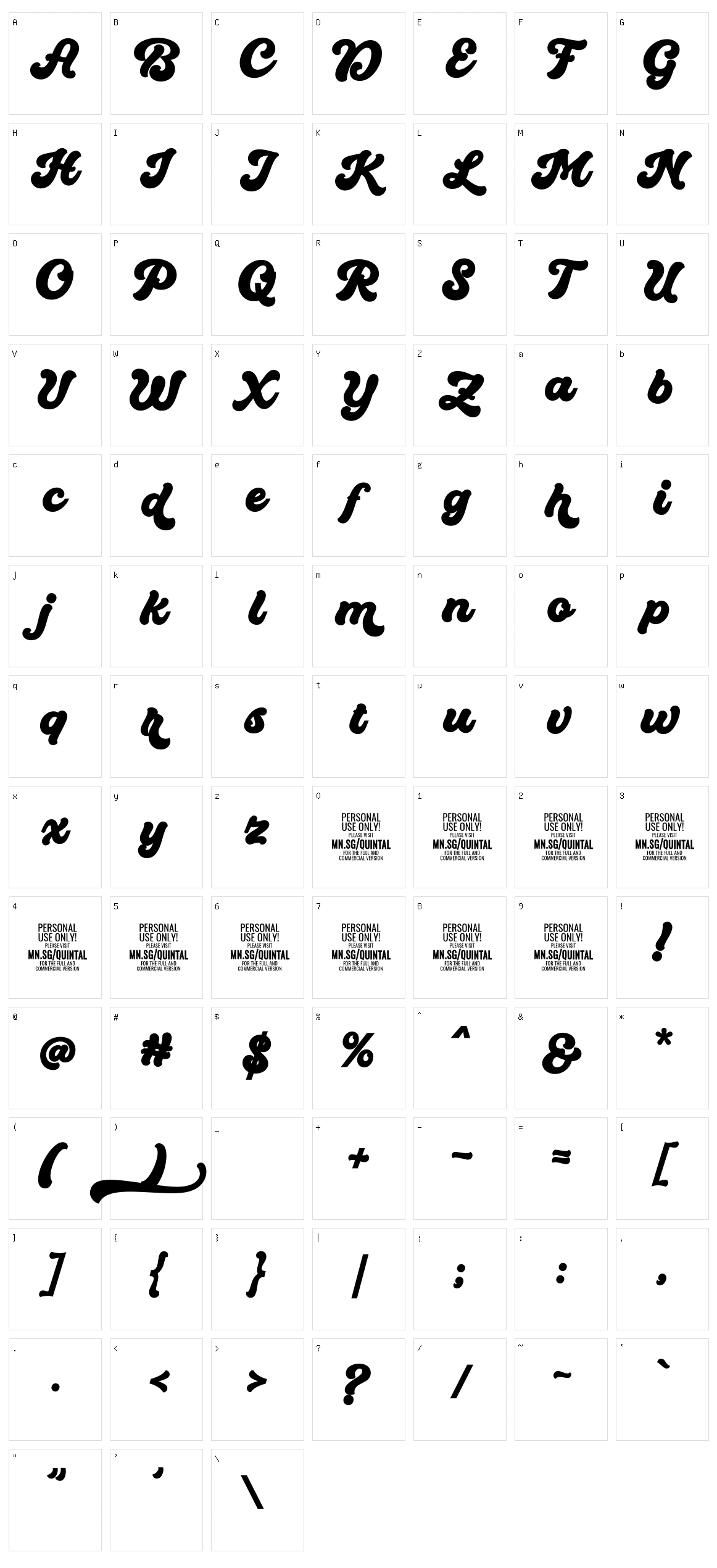
Quintal Script is a cool, bold brush typeface.
Drawn and created by Mans Greback & Sarwo Edi during the years 2019-2021, this flowing lettering has a wavy style and a vivid personality.
Perfect for a product or company logo, a poster or any artistry; this typographic masterpiece is sure to bring character to your brand.
Use underscore _ for a beautiful swash.
Example: Quintal_
Use multiple underscores for different swashes.
Example: Hand____
Quintal Script includes three different styles. In addition to the Regular weight, it also comes as Thin as well as Bold, giving the type an extra dimension of versatility.
The font is built with advanced OpenType functionality and has a guaranteed top-notch quality, containing stylistic and contextual alternates, ligatures and more features; all to give you full control and customizability.
It has extensive lingual support, covering all Latin-based languages, from North Europe to South Africa, from America to South-East Asia.
It contains all characters and symbols you'll ever need, including all punctuation and numbers.